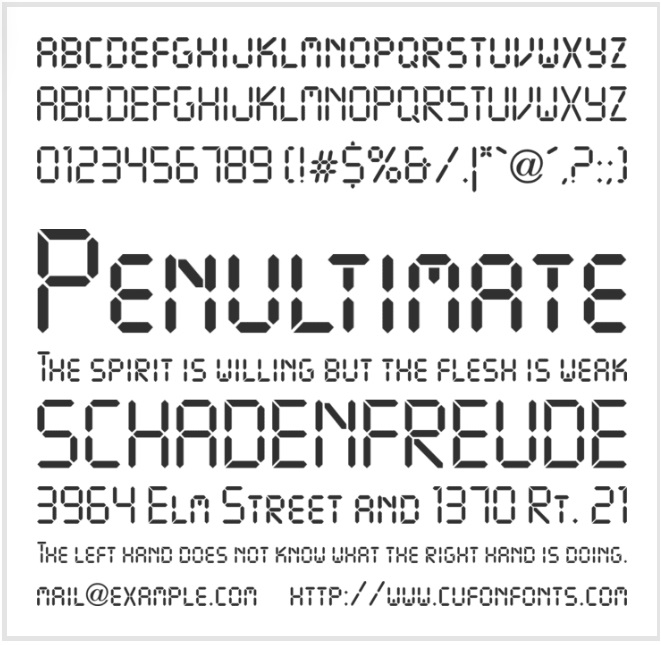
for font "Digital" here are my improvments: no k m v w and x comprises, small-cap letters, no lowercase letters: bdnqrty i've gotta complete basic latin, diagnal and vertical segments, minecraftia letters like @#%&_231.
so here are my imrovmnts: characters from Wikipedia's Seven Segment Characters Rp. All Latin Letters 1 arabic letter (Arabic Letter Alef) Greek & Cothic, Cyrillic Letters, All Punctation, Common Latin, All Marks
for font "Digital" here are my improvments: no k m v w and x comprises, small-cap letters, no lowercase letters: bdnqrty i've gotta complete basic latin, diagnal and vertical segments, minecraftia letters like @#%&_231.
so here are my imrovmnts: characters from Wikipedia's Seven Segment Characters Rp. All Latin Letters 1 arabic letter (Arabic Letter Alef) Greek & Cothic, Cyrillic Letters, All Punctation, Common Latin, All Marks